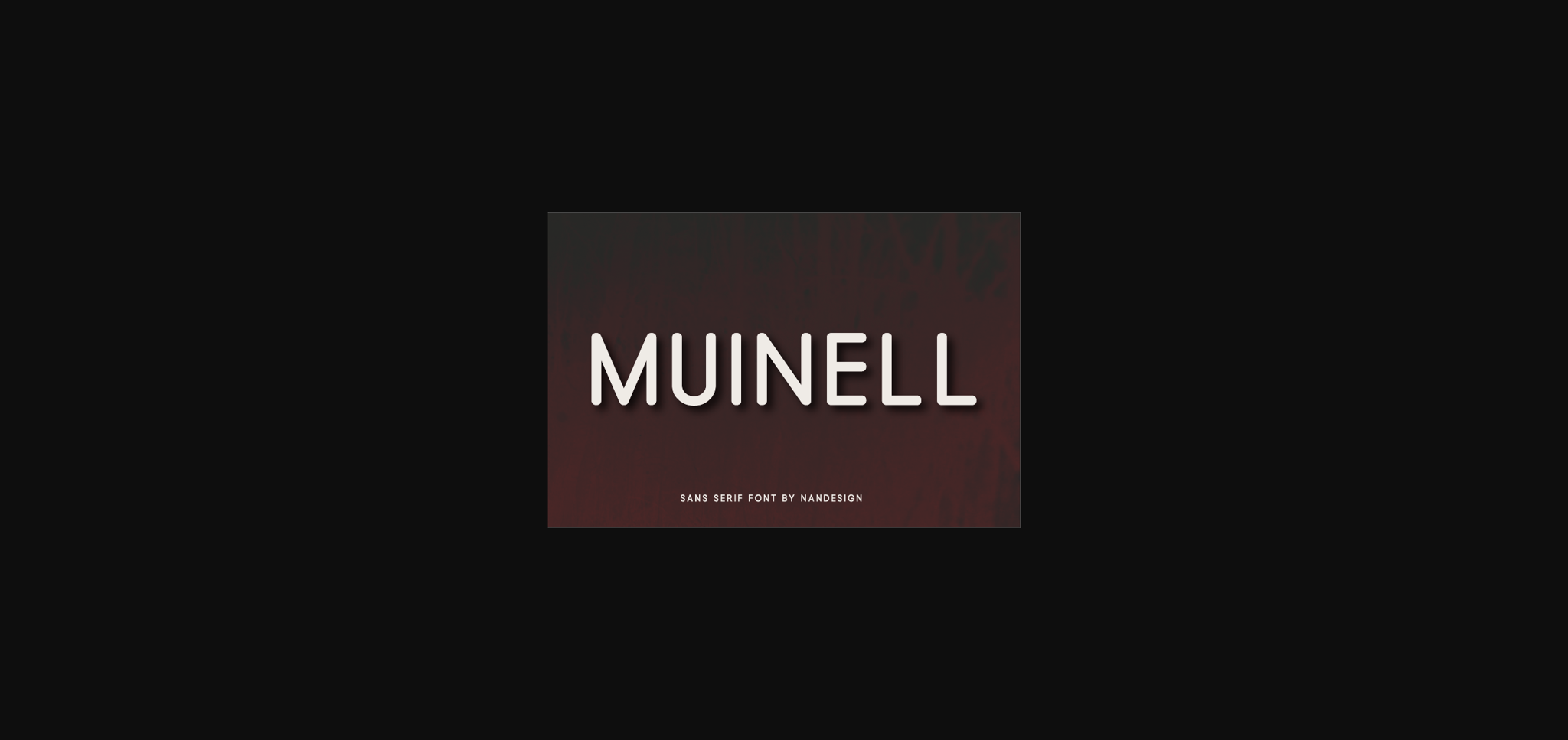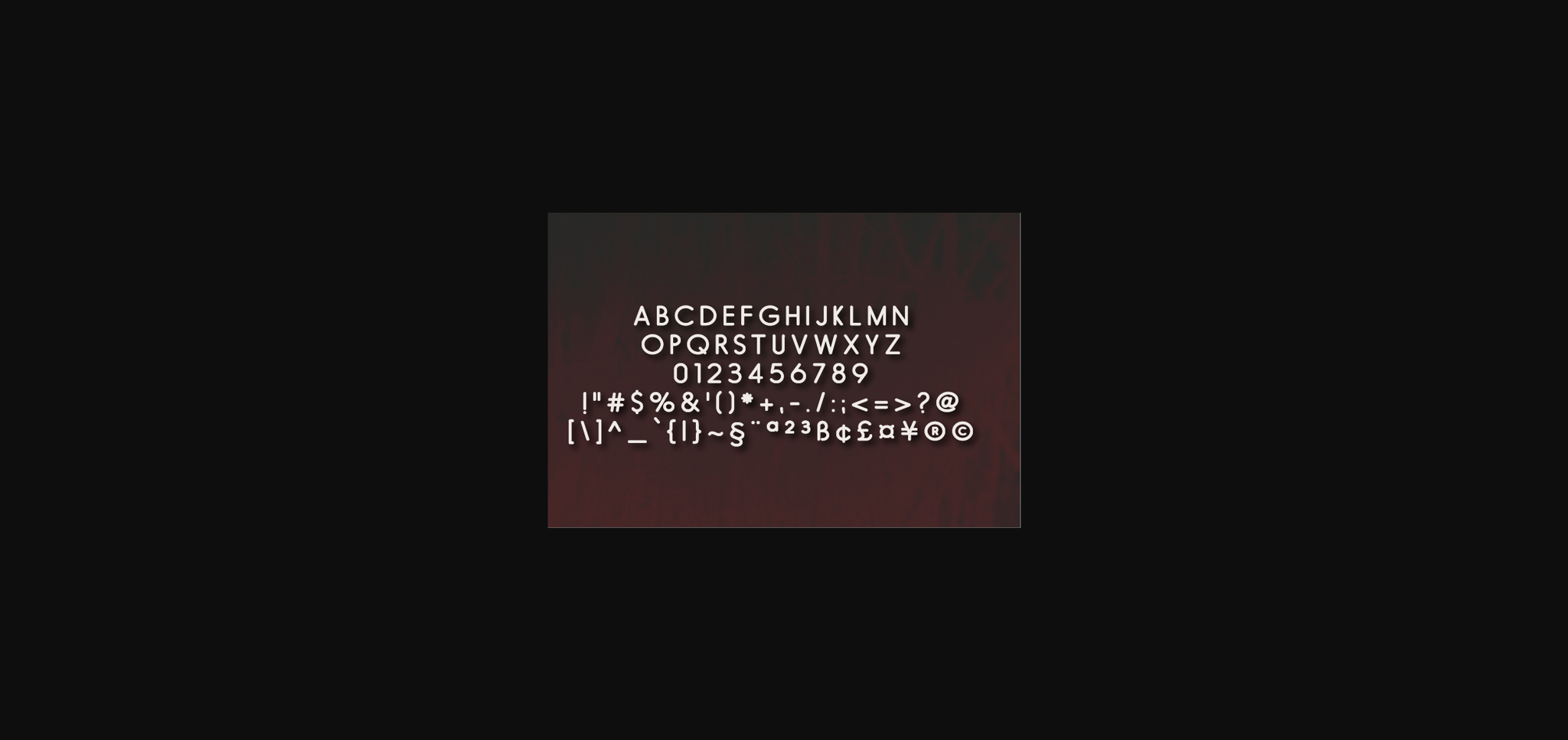
About Muinell Font
Muinell is a beautiful, simple, and minimalistic sans serif font. It can easily be matched to an incredibly large set of projects, so add it to your creative ideas and notice how it makes them stand out!